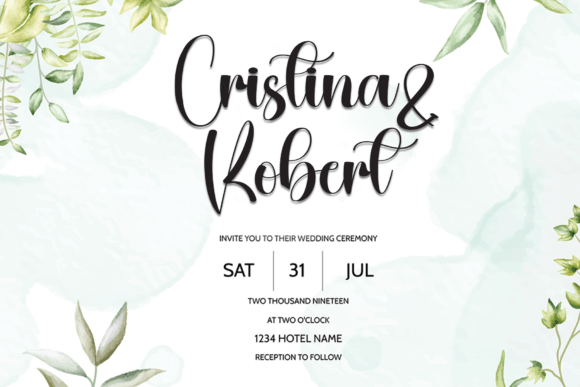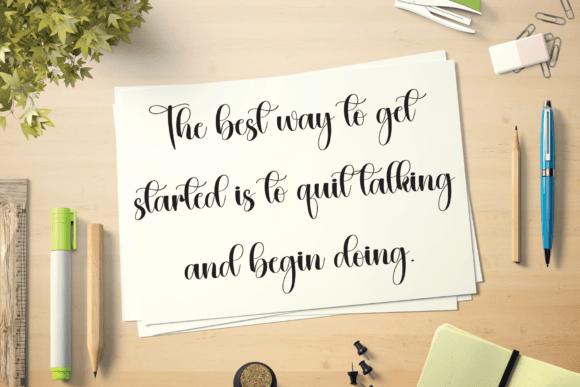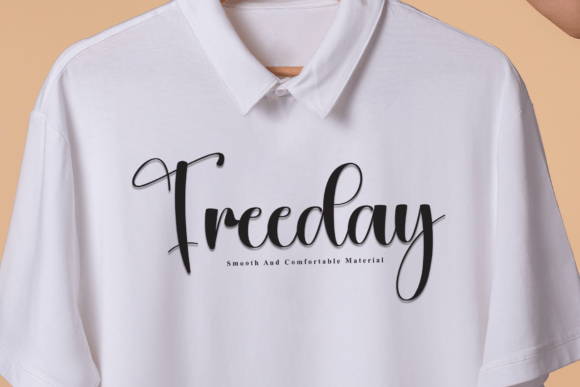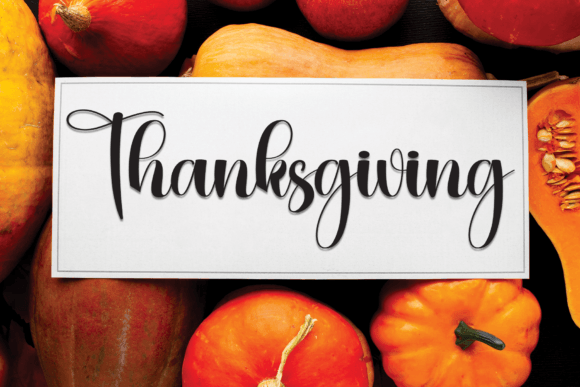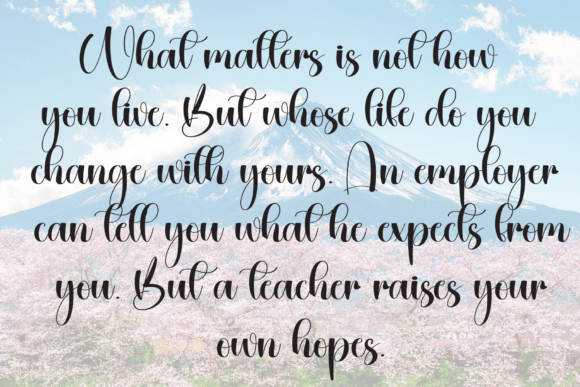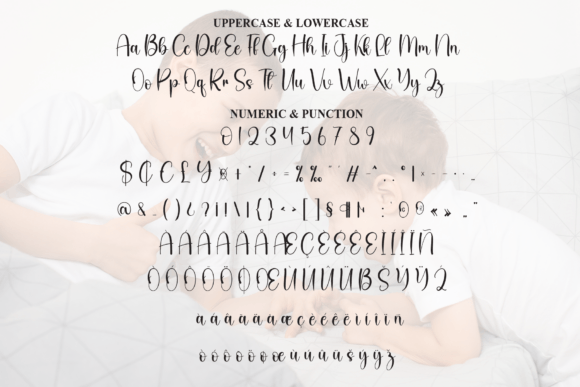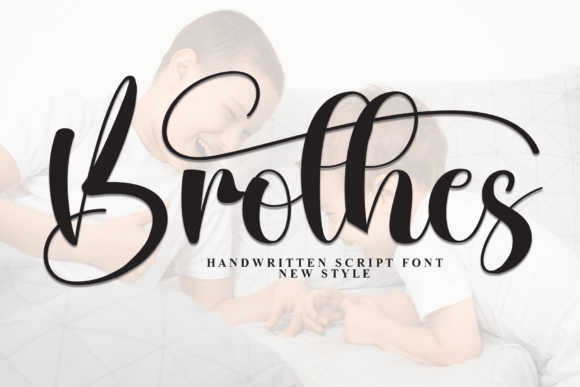
Introducing Brothers Font: The Ultimate Stylish Script Font for Creative Designs
Are you a designer or crafter looking for a font that can add a touch of elegance and friendliness to your creative projects? Look no further than Brothers Font, a stylish script font that is perfect for creating personal and creative designs. With its smooth, flowing letters and casual vibe, Brothers Font is ideal for a wide range of design applications, from invitations and quotes to logos and branding.
The Characteristics of Brothers Font
Brothers Font is a script font that boasts elegant curves and a smooth, flowing design. Its letters are carefully crafted to create a friendly, approachable feel that is perfect for designs that require a personal touch. The font’s casual vibe makes it ideal for creative projects that require a laid-back, yet sophisticated look.
One of the standout features of Brothers Font is its versatility. It can be used for a wide range of design applications, from formal invitations and event branding to social media graphics and blog posts. Whether you’re creating a logo, a brochure, or a social media graphic, Brothers Font is the perfect choice.
The Benefits of Using Brothers Font
So why choose Brothers Font for your design projects? Here are just a few benefits of using this stylish script font:
- Elegant and sophisticated: Brothers Font has a sleek, refined design that adds a touch of elegance to any project.
- Friend and approachable: The font’s smooth, flowing letters create a friendly, approachable feel that is perfect for designs that require a personal touch.
- Versatile: Brothers Font can be used for a wide range of design applications, from formal invitations to social media graphics.
- Easy to read: The font’s clear, flowing design makes it easy to read, even at small sizes.
How to Use Brothers Font in Your Designs
Brothers Font is easy to use in a variety of design applications. Here are a few tips for incorporating the font into your creative projects:
- Pair it with bold fonts: Brothers Font pairs perfectly with bold, sans-serif fonts. Try pairing it with a font like Arial Black or Helvetica Bold to create a striking contrast.
- Use it for headings: Brothers Font is perfect for headings and titles. Use it to add a touch of elegance and sophistication to your designs.
- Add some flair: Brothers Font has a range of swashes and flourishes that can be used to add some extra flair to your designs. Experiment with different swashes and flourishes to find the perfect look.
Design Ideas Using Brothers Font
Brothers Font is a versatile font that can be used for a wide range of design applications. Here are a few ideas to get you started:
- Invitations: Use Brothers Font to create beautiful, elegant invitations for weddings, parties, and other special events.
- Logos: Brothers Font is perfect for creating logos and branding for businesses and organizations.
- Social media graphics: Use Brothers Font to create eye-catching social media graphics that showcase your brand’s personality.
- Quotes and posters: Brothers Font is ideal for creating inspirational quotes and posters. Its elegant design and smooth flowing letters make it perfect for showcasing motivational messages.
Brothers Font is a stylish script font that is perfect for designers and crafters looking to add a touch of elegance and friendliness to their creative projects. With its smooth, flowing letters and casual vibe, Brothers Font is ideal for a wide range of design applications, from invitations and quotes to logos and branding. Whether you’re a seasoned designer or just starting out, Brothers Font is a great choice for any creative project.